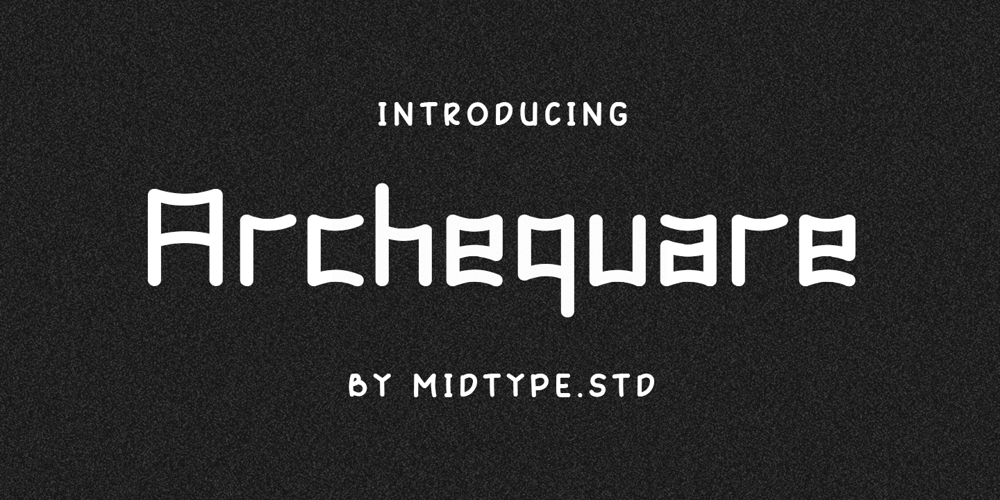
Archequare
Archequare font
Archequare Font Family was designed by Dwi Nur Hamida and published by Midtype. Archequare contains 1 styles and family package options. Archequare is a square font made with geometric shapes by adding a slight curve to the font to make it more varied and specifically designed for text content, long sentences such as mechanical instructions. However, Also useful for display, titling, captions by their sophisticated glyph shapes and their eye-catching geometry